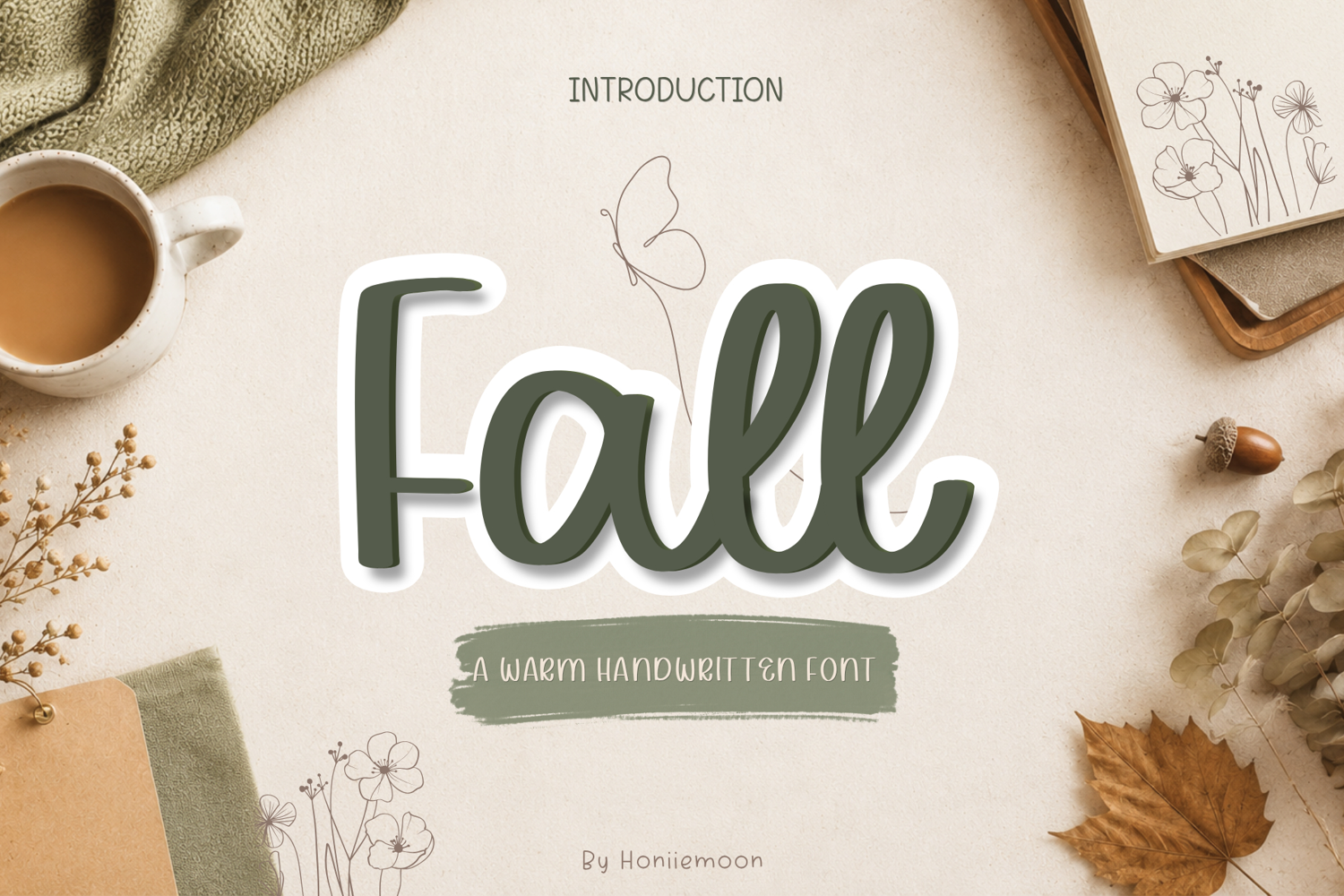
Create cozy autumn branding with a warm handwritten style that looks beautiful on journals, mugs, tote bags, planners, packaging, invitations, stickers, and social media.
Fall